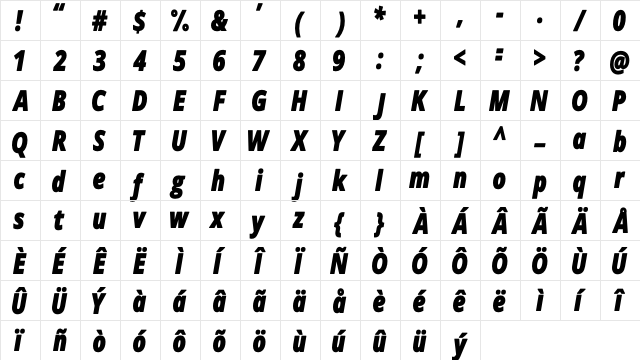
Novus-Bold-Italic Regular
Design Context for Novus-Bold-Italic Typeface
Novus-Bold-Italic takes a measured approach to typography — its balanced proportions and neutral character make it a reliable workhorse for both digital and print work. The dynamic lean of this cut emphasises speed and emphasis in any layout. The heavy weight commands attention and anchors typographic hierarchies.
Pro Tip: Use Novus-Bold-Italic for emphasis, pull quotes, and subheadings where its slanted energy can add rhythm to the layout.